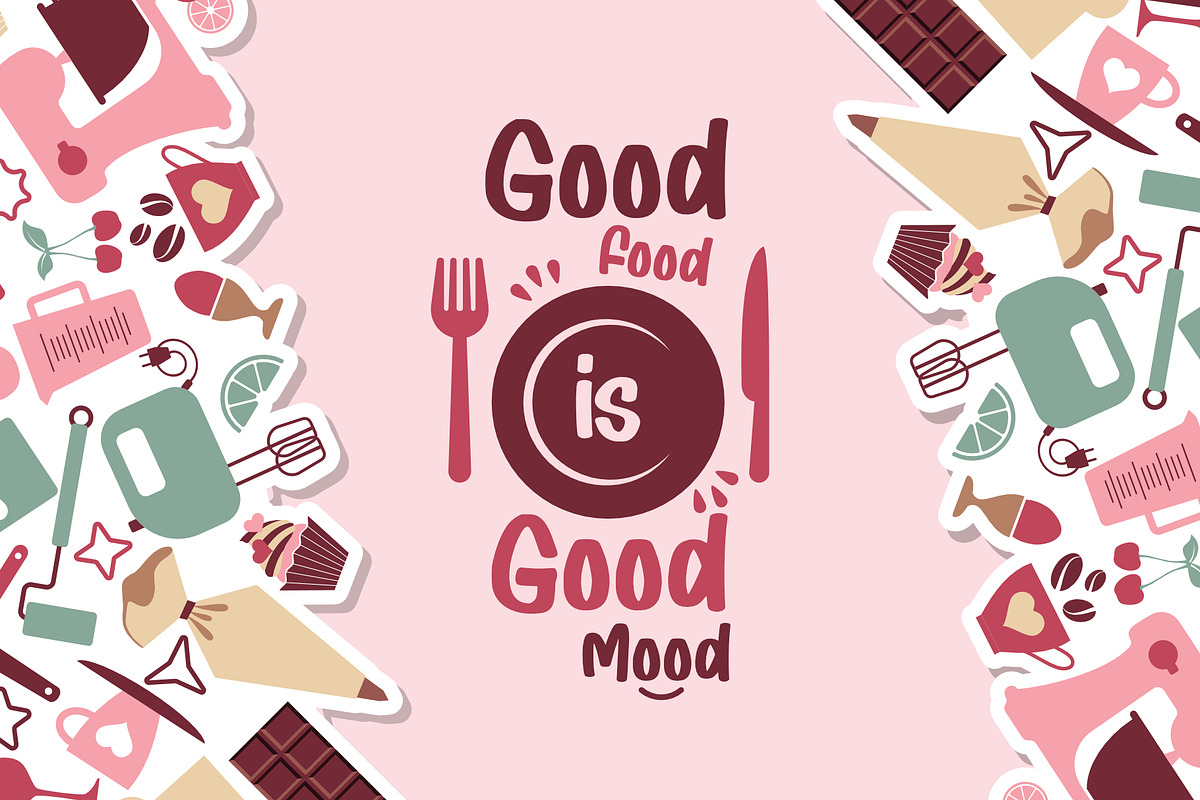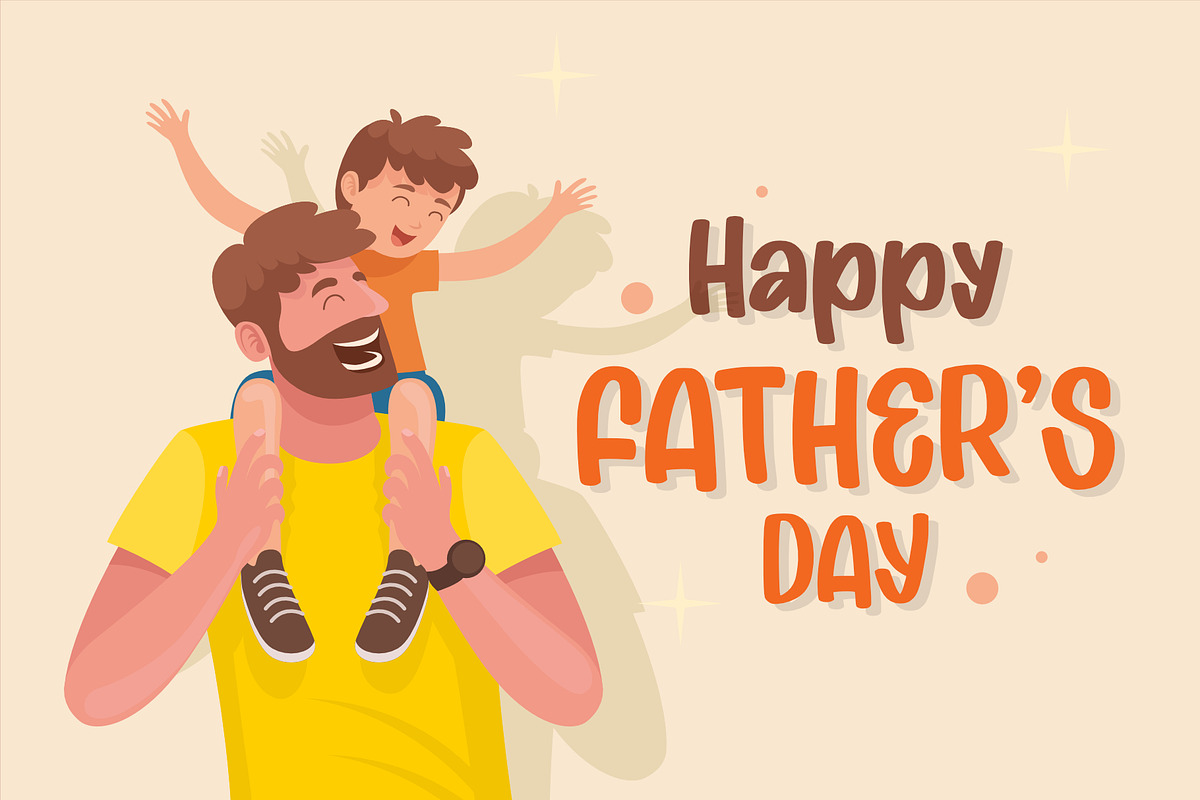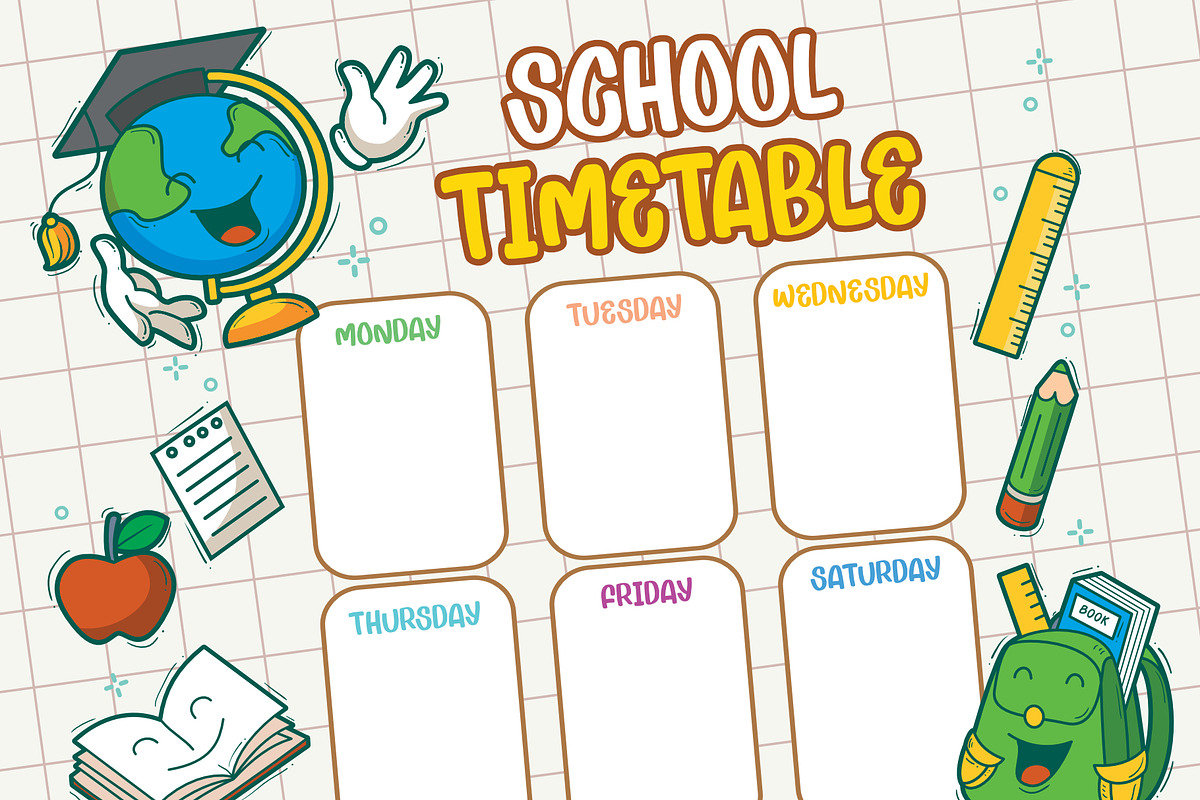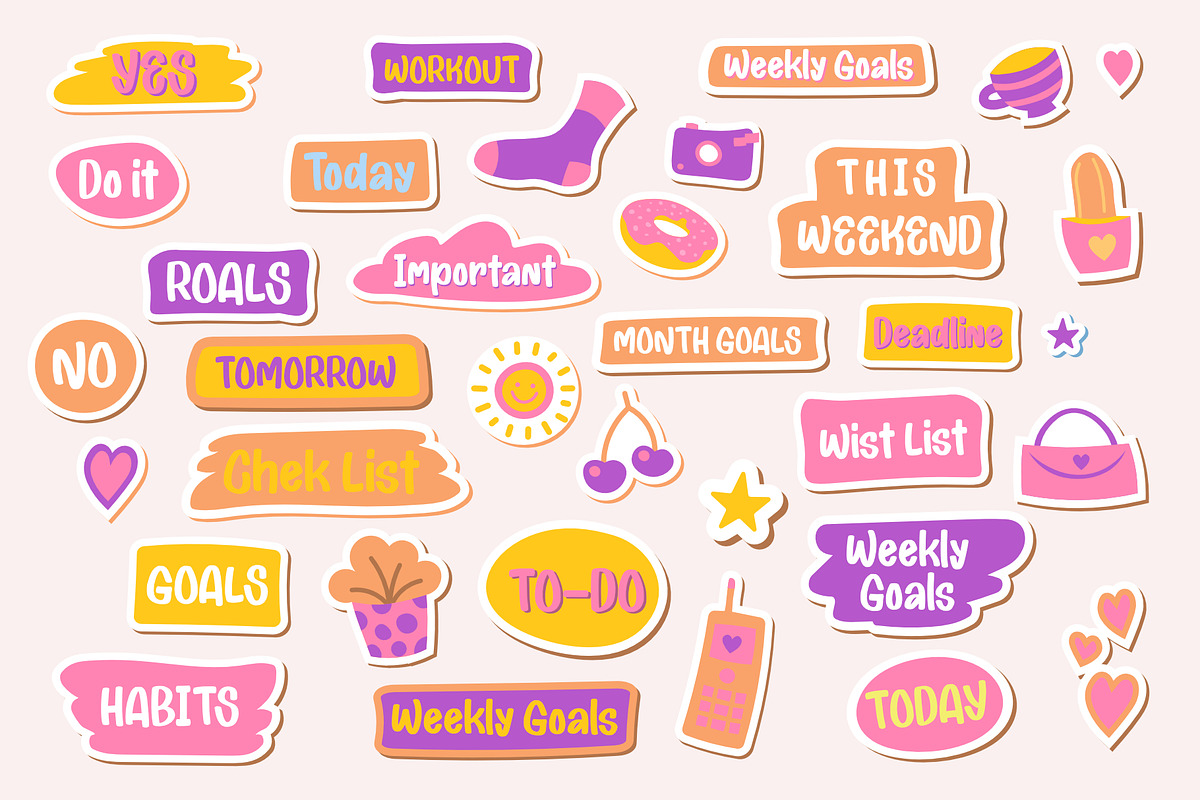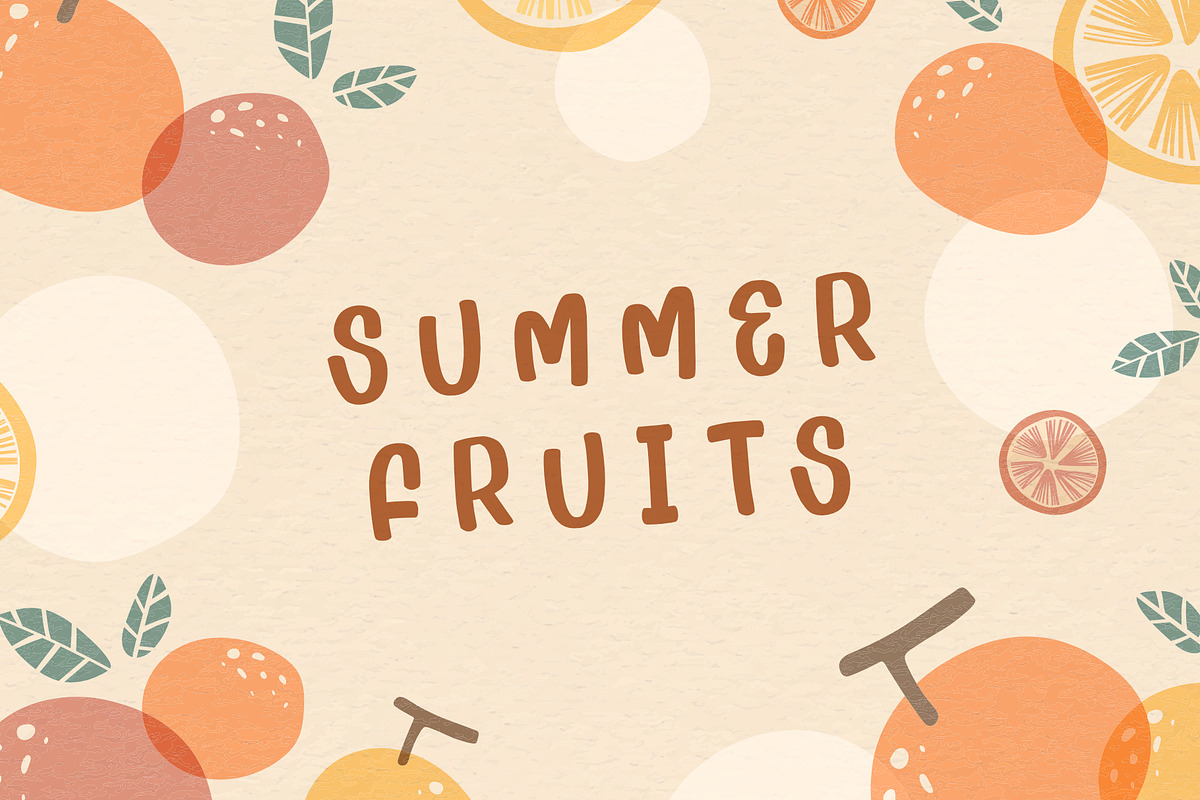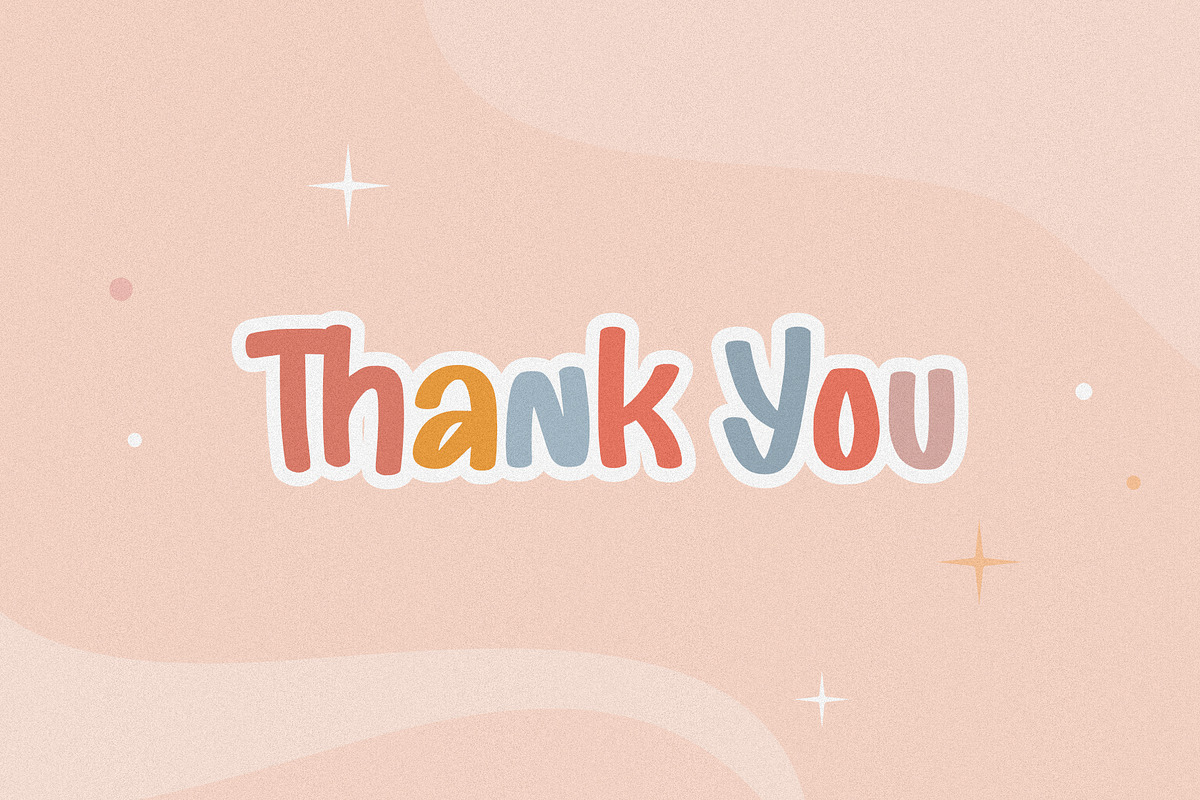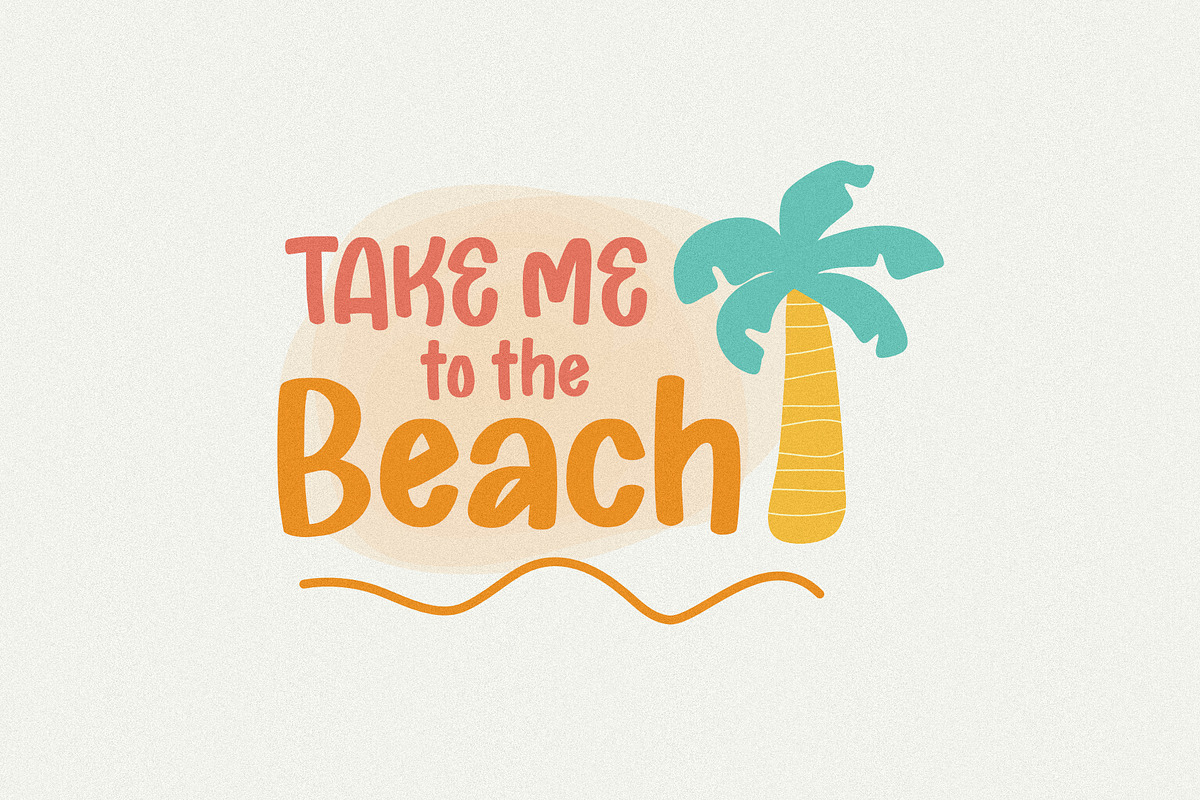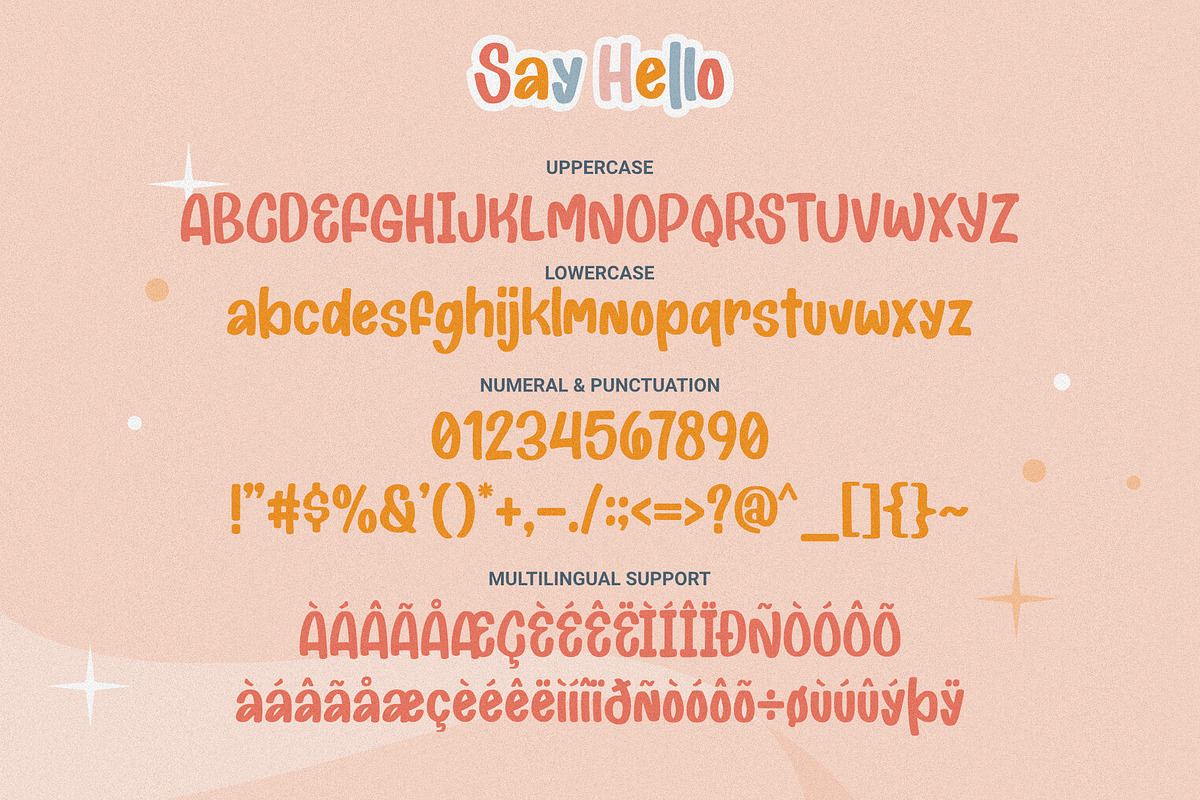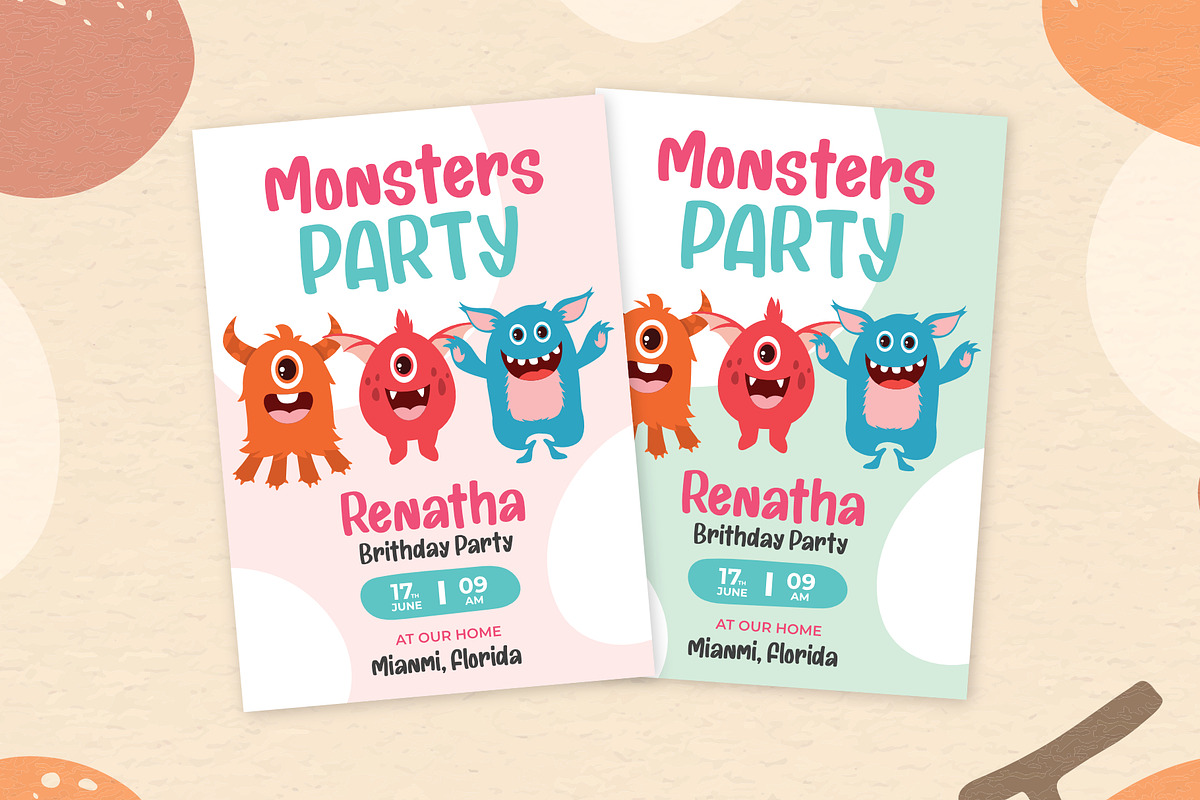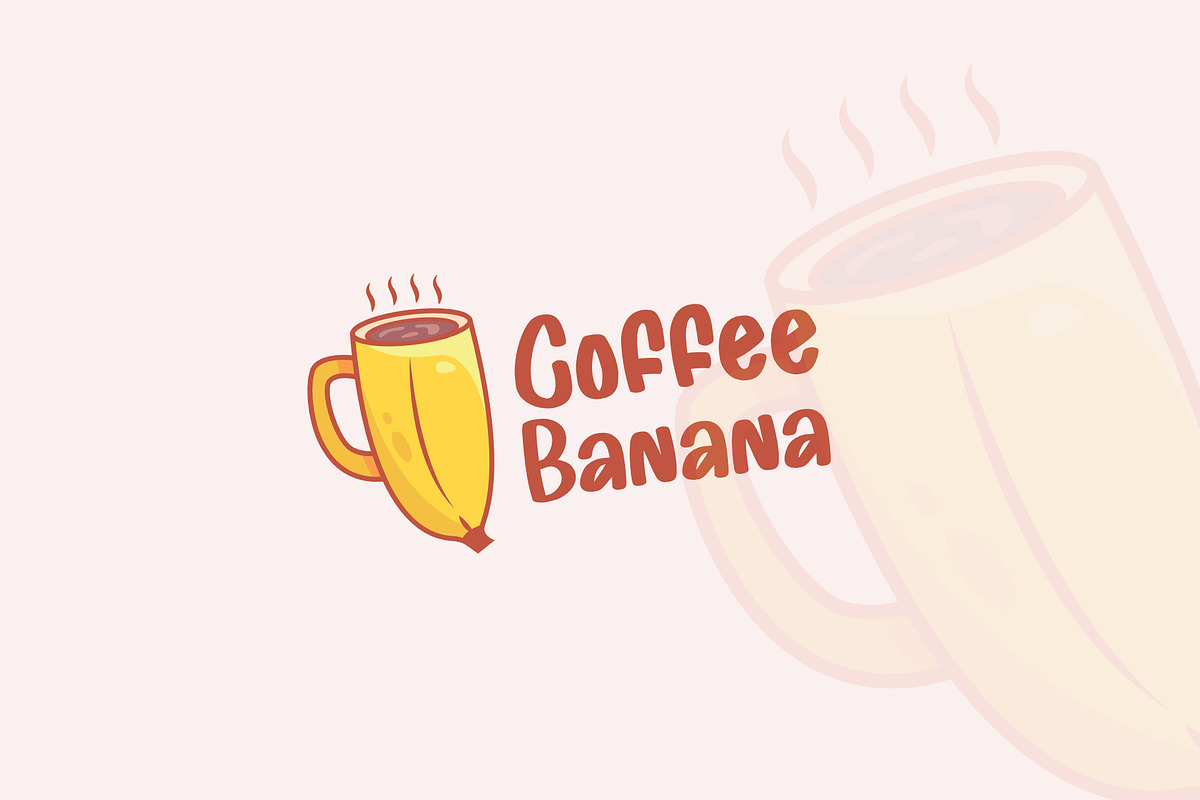
Say Hello - Cute Display Font
Welcome to: Say Hello - Cute Display Font
It's smooth, it's funny, it's fun, and it's very nice: it's Hello - Cute Display Font mixed fonts with many possible combinations.
Say Hello is the perfect font for all your fun designs. The main font file is equipped with ordinary characters (A-Z, a-z, 0-9, Multilingual Support), as well as more than 200+ glyphs to support most Latin-based languages.
Everything is made with the same brush, and everything is the same size as Hello Brownie, so you can be sure they will work well together! It is suitable for you to use in making t-shirt design, quote, label, packaging, logo type, or long writing. Because we have compiled kerning and matrices that are tailored to your needs.
Hello Milky feature:
- More than 200+ glyphs
- 26 languages support: Afrikaans Albanian Croatian Czech Danish Dutch English Estonian Finnish French German Hungarian Icelandic Italian Latvian Lithuanian Maltese Norwegian Polish Portugese Slovak Slovenian Spanisch Swedish Turkish Zulu